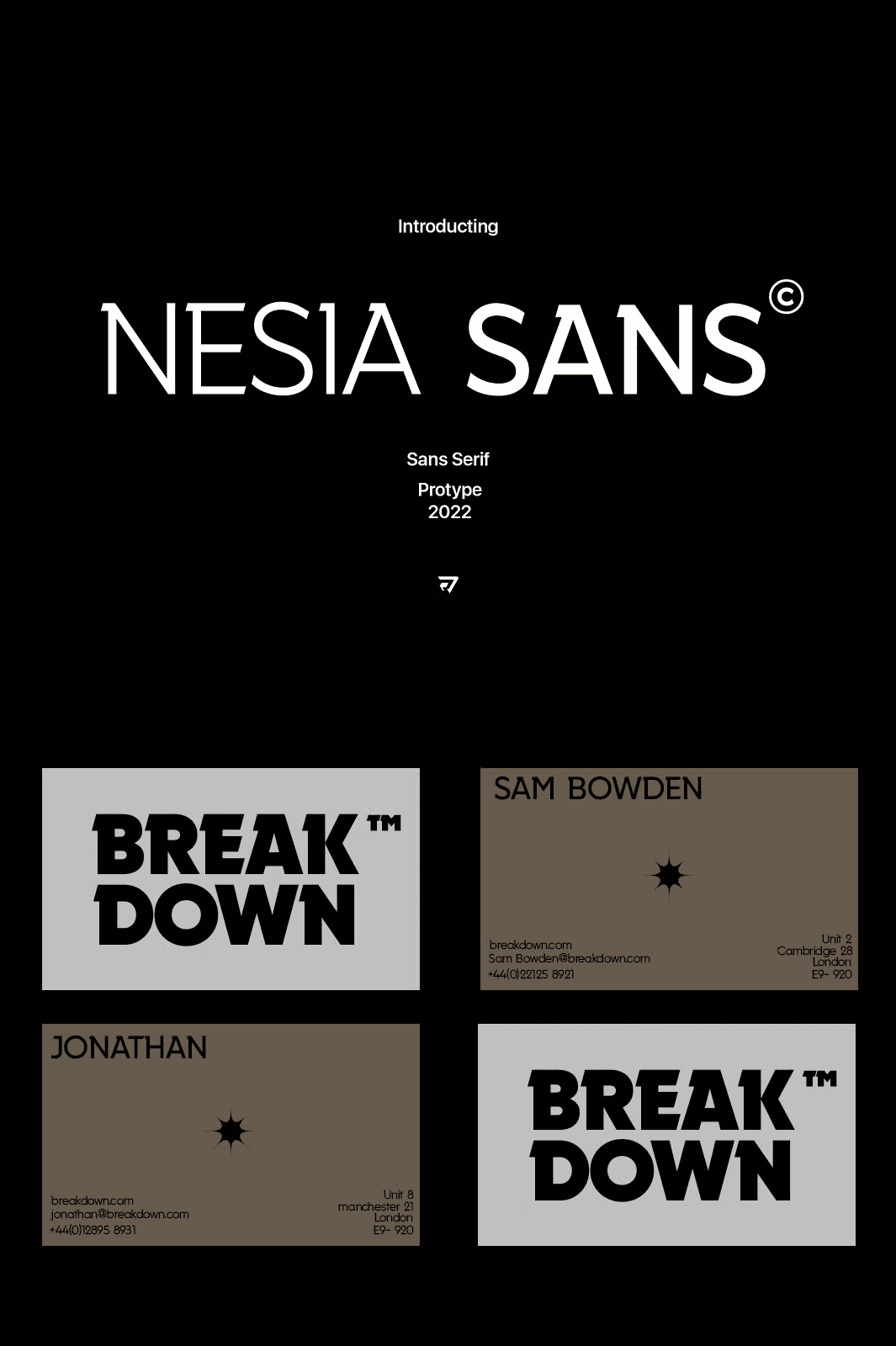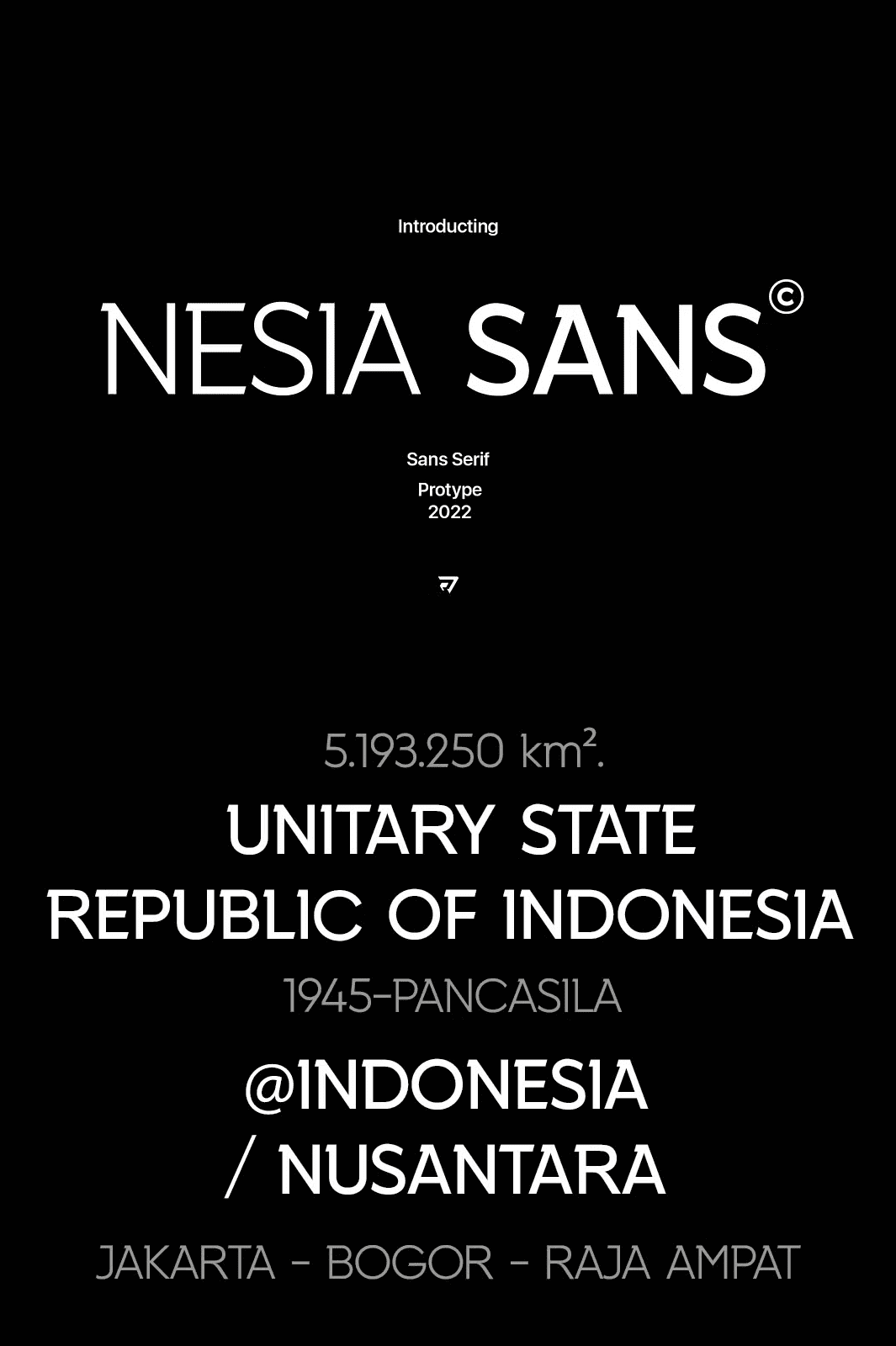
Nesia Sans Font
Step into the future of typography with Nesia Sans, a modern slab serif font engineered to deliver sharp precision and bold elegance. This dynamic typeface is more than a font—it’s a design catalyst. Its clean, minimalist structure and strong, confident lines are crafted to inspire your most ambitious projects and ensure your work stands out in a crowded visual landscape. Whether you’re crafting a corporate identity or designing a cutting-edge web interface, Nesia Sans gives you the tools to create spectacular, high-impact designs that captivate every viewer.
Design with Precision: Clean, Sharp Lines for Maximum Impact
Nesia Sans is built for clarity and confidence. Its modern slab serif structure features perfectly balanced proportions, sharp edges, and uniform stroke weights that deliver a powerful visual rhythm. There are no distractions—just clean, intentional design. This focus on simplicity creates an instant sense of professionalism and modernity. The font’s sharp, decisive lines make it ideal for headlines, logos, and UI elements where immediate readability and strong presence are critical. Use Nesia Sans to define brands, structure content, and elevate the overall aesthetic of your digital or print work.
Break Boundaries: A Versatile Typeface for Every Creative Challenge
From minimalist web designs to bold advertising campaigns, Nesia Sans adapts seamlessly. This highly versatile typeface is not limited to one style or application—it thrives across disciplines. Use it for professional branding that demands attention. Apply it to sleek landing pages to drive user engagement. Deploy it in editorial layouts to create a clean, modern narrative flow. Its bold yet balanced structure ensures that every project feels both grounded and innovative. Whether you’re working with text in a complex layout or creating a single standout headline, Nesia Sans delivers a clean, striking visual statement with unmatched consistency.
Elevate Your Workflow: Professional-Grade Performance and Compatibility